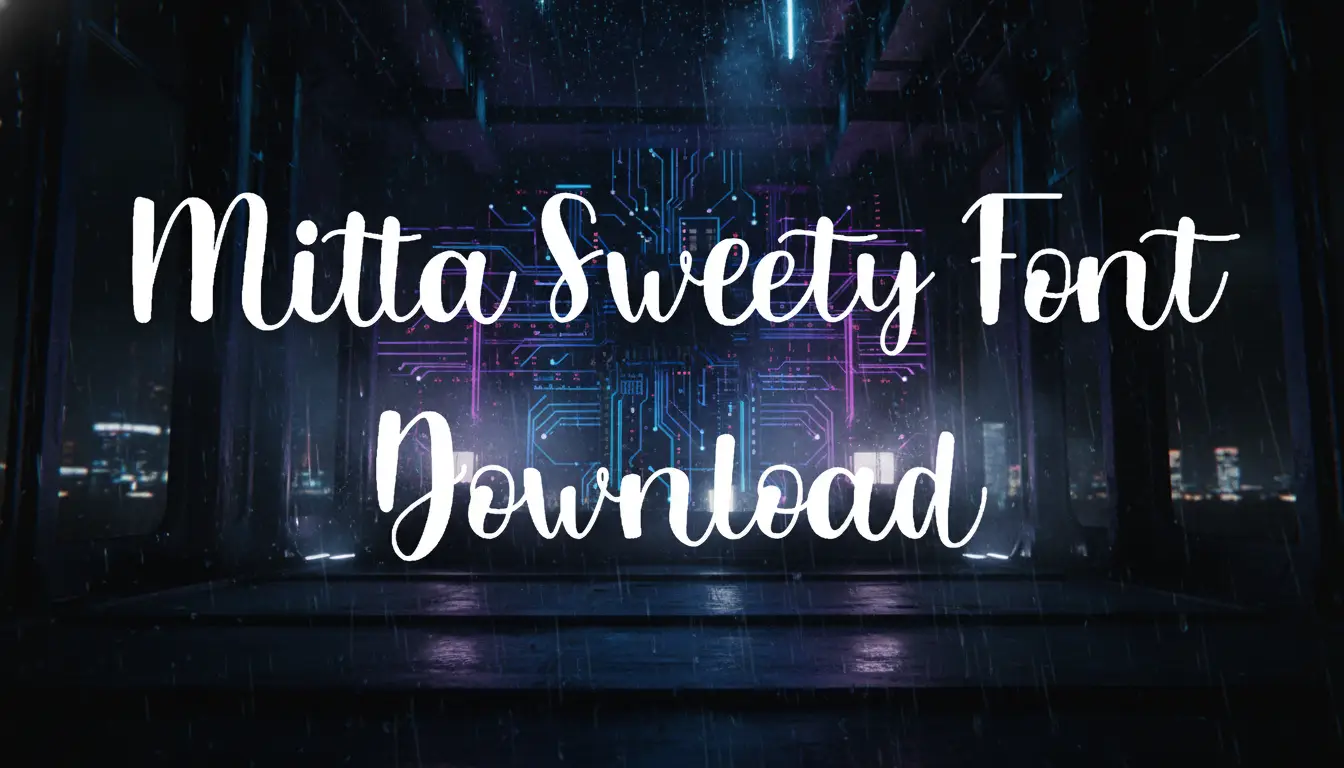
Mitta Sweety Font
Mitta Sweety
Mitta Sweety is a script font designed by Ikrar Bey Khubaib. Its flowing, pen-made letters give names and short phrases a personal, polished look. It's a free download, and you can try it with your own text in the preview above first.
Mitta Sweety Font Details
- Designer: Ikrar Bey Khubaib
What You Can Type With Mitta Sweety
With complete upper and lowercase letters and all ten digits, Mitta Sweety is ready for real wording, not just a single headline. Common punctuation such as &, !, ? and @ is included as well. It also has the accented letters you need for Spanish, French, German, Portuguese and Italian.
Where Mitta Sweety Works Best
Mitta Sweety is a natural fit for wedding invitations, logos and signature-style headings. Script fonts read best in short bursts, so keep it to names, titles and one-line quotes. Skip all caps: script capitals are drawn to start a word, not to fill one.
Does Mitta Sweety support accented letters?
Yes. Mitta Sweety includes the accented letters needed for Spanish, French, German, Portuguese and Italian, so it works for more than just English.